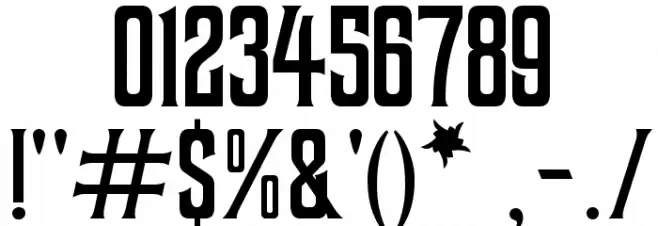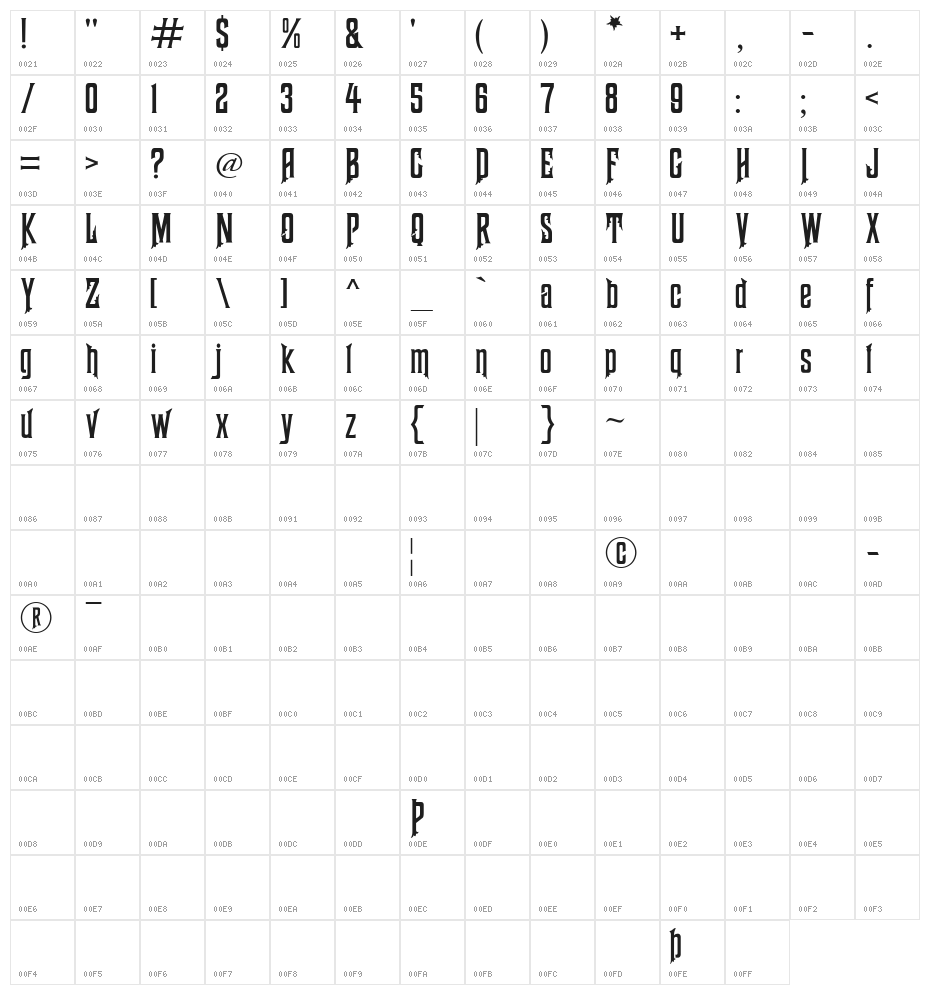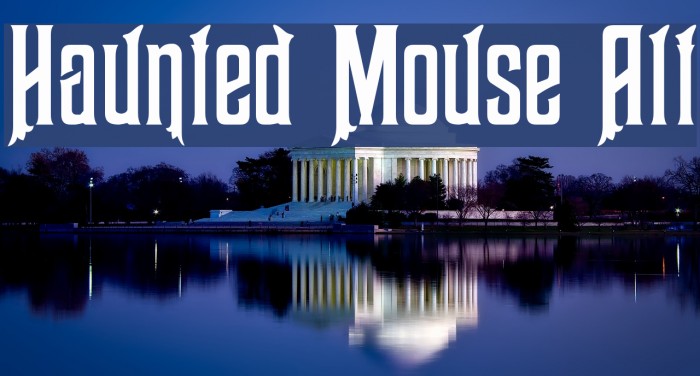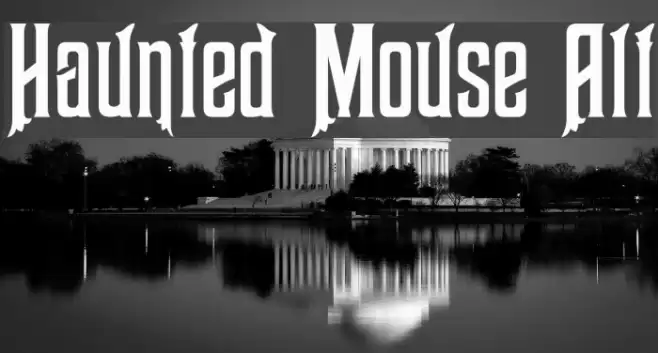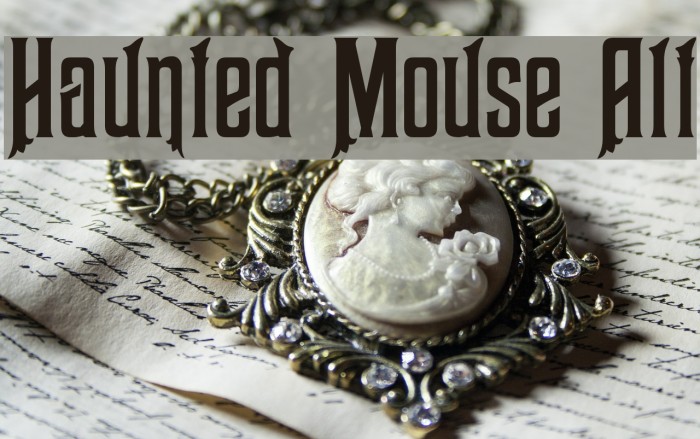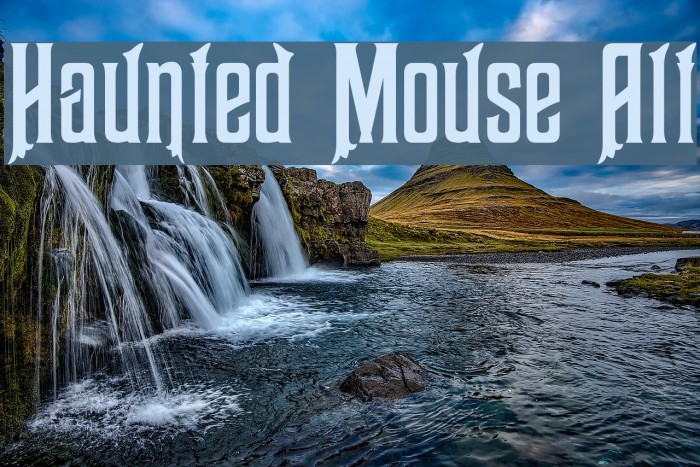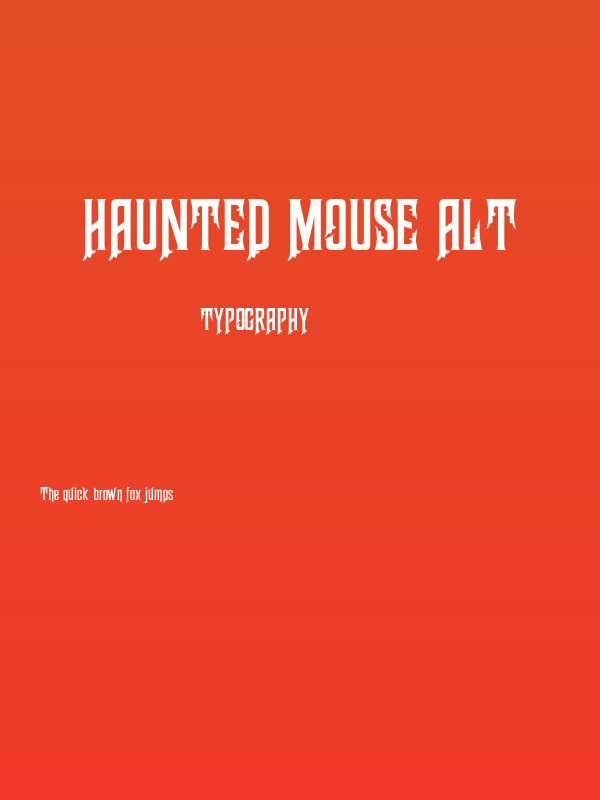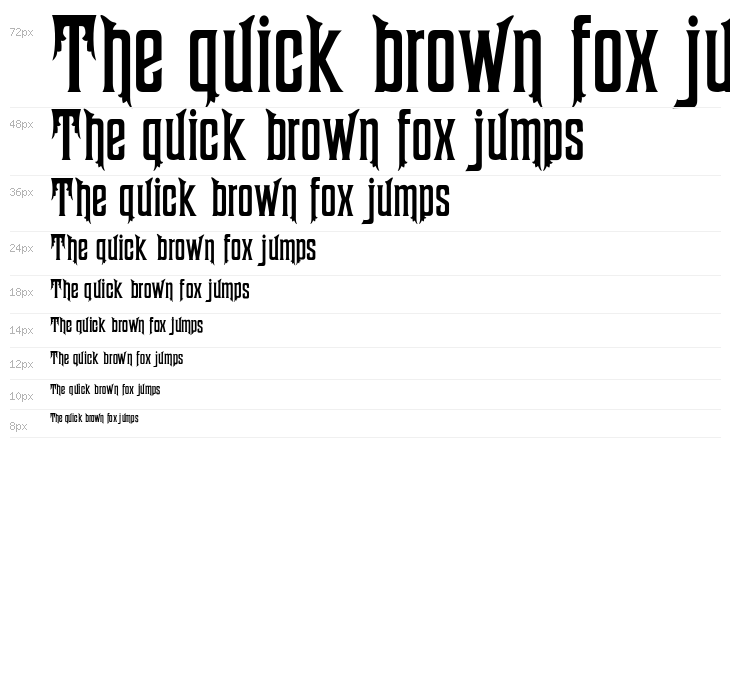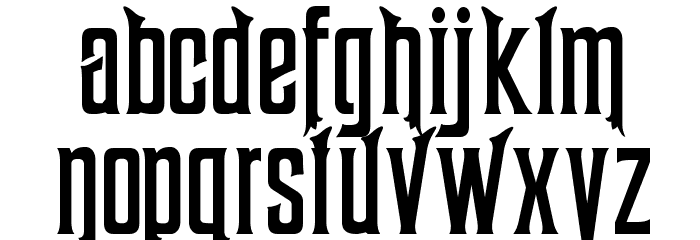
Haunted Mouse Alt Font
Haunted Mouse Alt Description
This font features a spooky, decorative style with jagged edges and irregular shapes that evoke a haunted or eerie atmosphere. The uppercase and lowercase letters are designed with sharp, pointed serifs and unique cutouts that resemble bat wings or torn fabric, enhancing its ghostly appearance. The numbers and special characters maintain this theme, ensuring consistency across all glyphs. Its bold and striking design makes it ideal for Halloween-themed projects or any context requiring a touch of the macabre. The font's distinct personality is perfect for capturing attention and creating a memorable visual impact.
| Proposed Projects | Ideal for Halloween invitations, haunted house posters, spooky event flyers, or themed merchandise. |